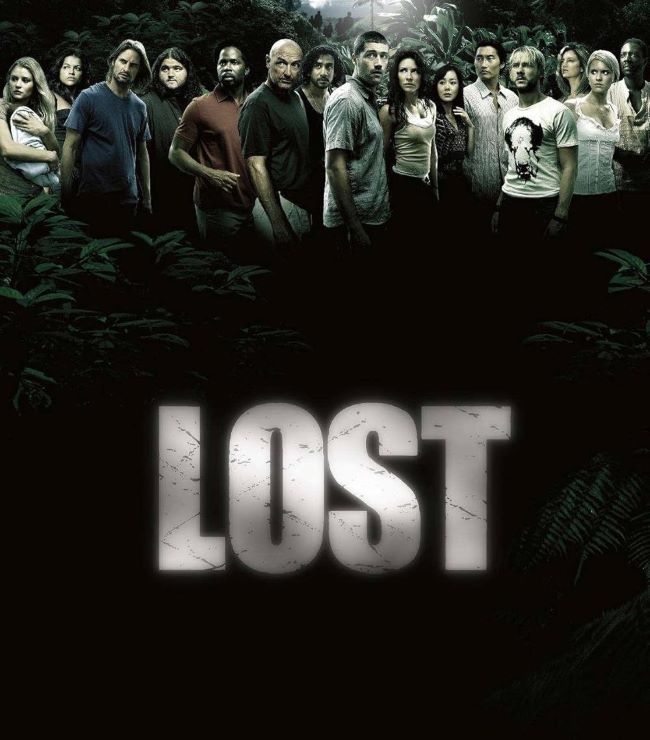
The Lost font is simple, bold, and haunting—just like the mystery at the heart of the series. Its heavy sans-serif style, usually presented in stark white against a dark background, creates a sense of urgency and intrigue. The Lost font feels minimal yet powerful, pulling viewers into the unknown from the very first frame. It doesn’t rely on complexity; instead, its strength lies in its clean, striking presence that mirrors the show’s suspenseful storytelling.
Lost Font
Designers and fans often look to the Lost font when they want to capture mystery, tension, and drama in their projects. Its no-nonsense design works perfectly for posters, thrillers, or anything meant to evoke feelings of the unexplained. The Lost font isn’t decorative—it’s direct, commanding attention much like the series itself.
The show Lost premiered in 2004 and became a cultural phenomenon, following survivors of a plane crash stranded on a mysterious island. Known for its complex characters, twists, and supernatural elements, the series kept audiences hooked with every clue and unanswered question. Much like the Lost font, the show left a bold, lasting impression on television history. You can also check our free fonts collection.